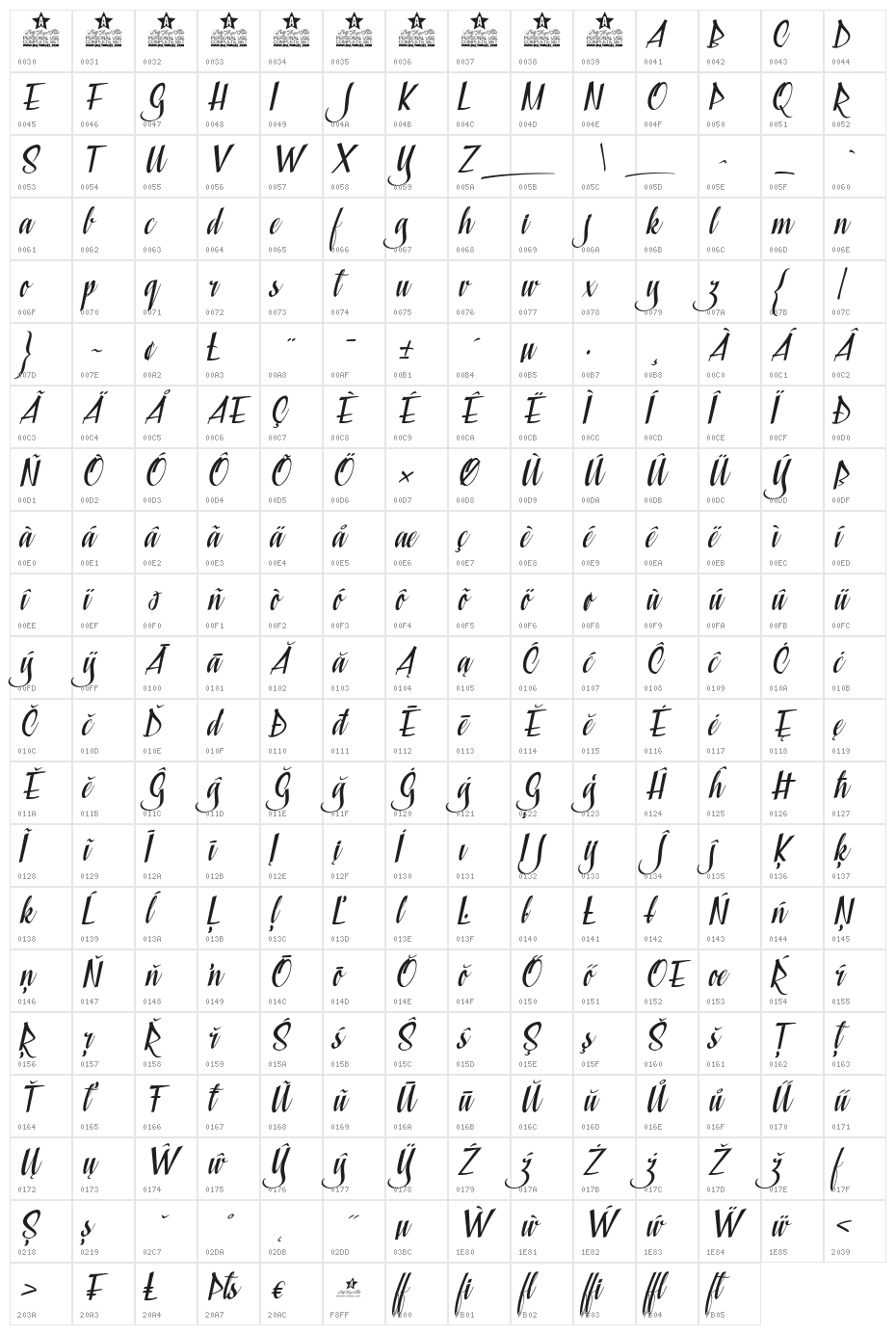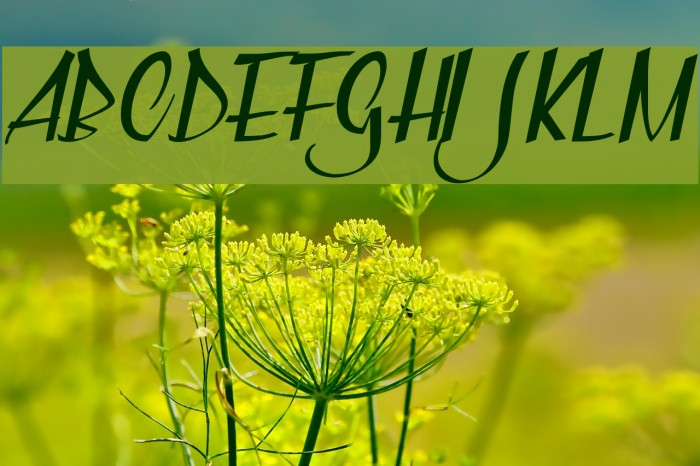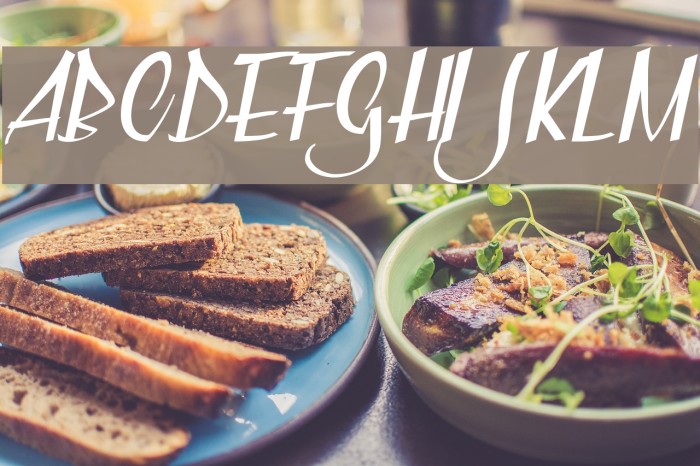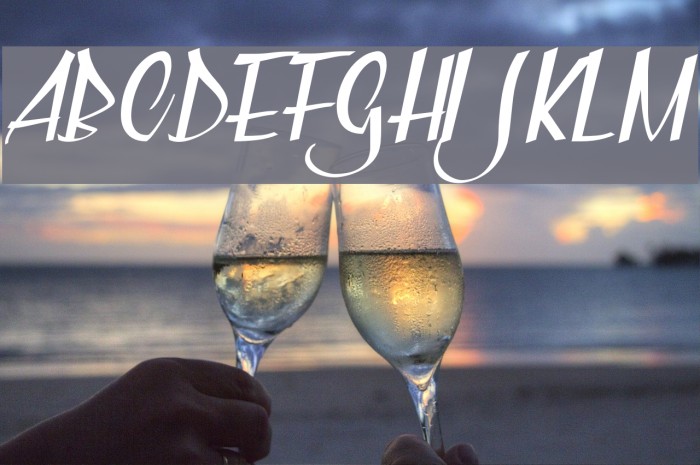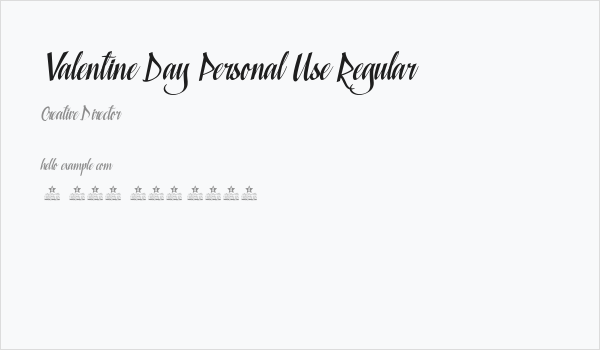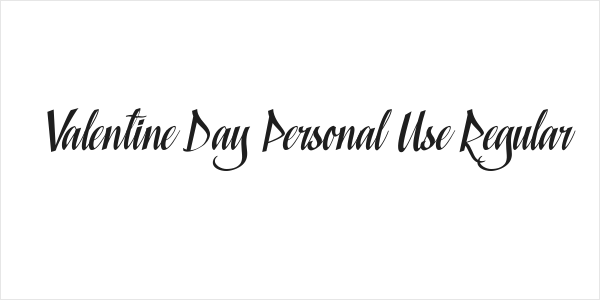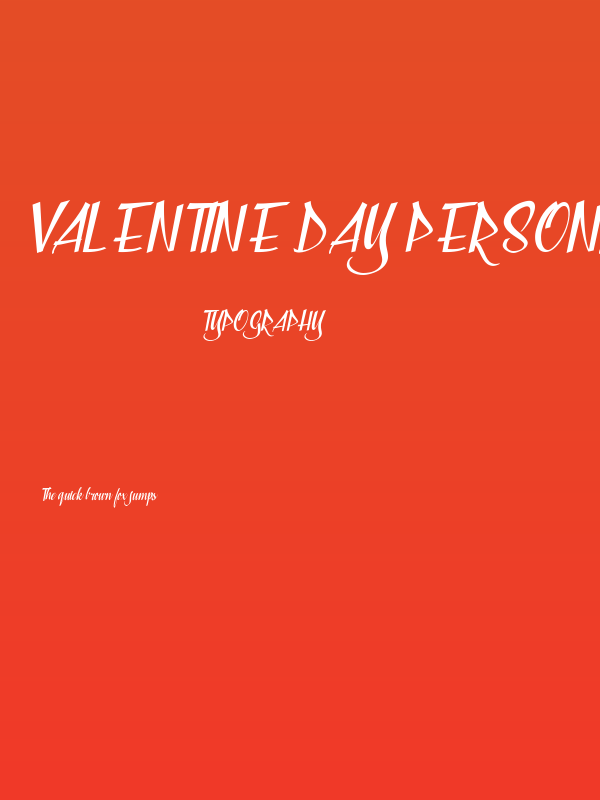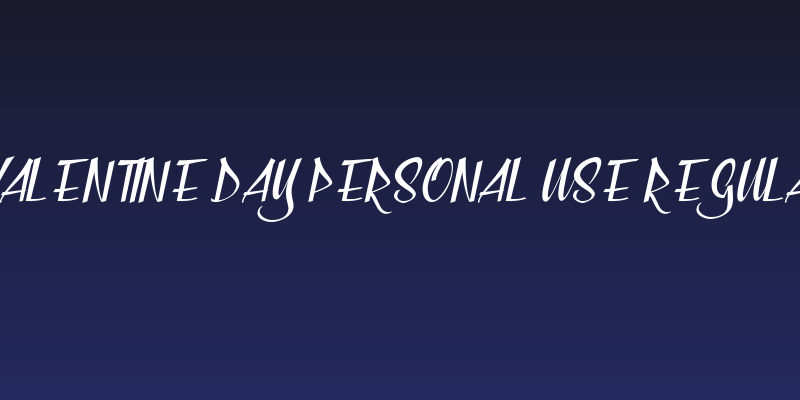
Valentine Day Personal Use Regular Font
Valentine Day Personal Use Regular Description
This font features an elegant and flowing script style, characterized by its smooth, cursive strokes and decorative flourishes. The uppercase letters exhibit a dramatic flair with extended lines and loops, while the lowercase letters maintain a consistent, graceful flow. The overall design is reminiscent of classic calligraphy, offering a romantic and sophisticated appearance. The font's unique style is suitable for creating an artistic and personal touch in various design projects.
| Overall Style | Romantic, Decorative |
| Use Case | Headlines, Invitations, Logos |
| Proposed Projects | Ideal for wedding invitations, greeting cards, romantic-themed designs, and personal branding. |